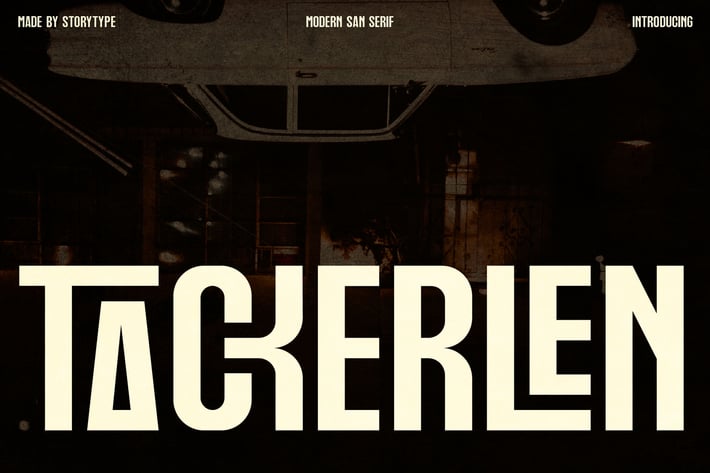
Tackerlen is a bold modern sans serif font built with strong proportions and a confident industrial feel. Its solid letterforms and clean geometry make it a powerful choice for impactful headlines, posters, and branding that needs to stand out with clarity and authority.
Bold modern sans serif style with strong visual presence
Clean, geometric letterforms for high readability
Perfect balance between modern and industrial aesthetics
Consistent spacing ideal for headlines and display use
Modern branding & visual identities
Posters, billboards, and headlines
Editorial layouts and magazine covers
Social media graphics and promotions
Logos, packaging, and marketing materials
Strong, modern, and unapologetically bold — a typeface made to command attention.*